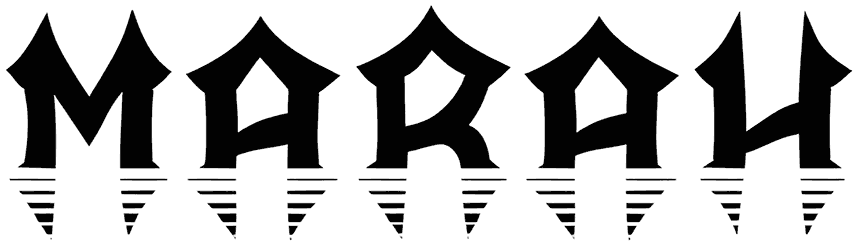
Marah Font
Now it’s time to represent you; Marah, a bold gothic font with sharp edges and striped horizontal lines at the bottom. It seems brave, determined, and powerful in the scariest way.
Plus, it will make your upcoming project stand out from the rest. This font looks perfect for various types of design, such as horror movie posters, album covers, T-shirt prints, advertising, and vampire/Halloween concepts.